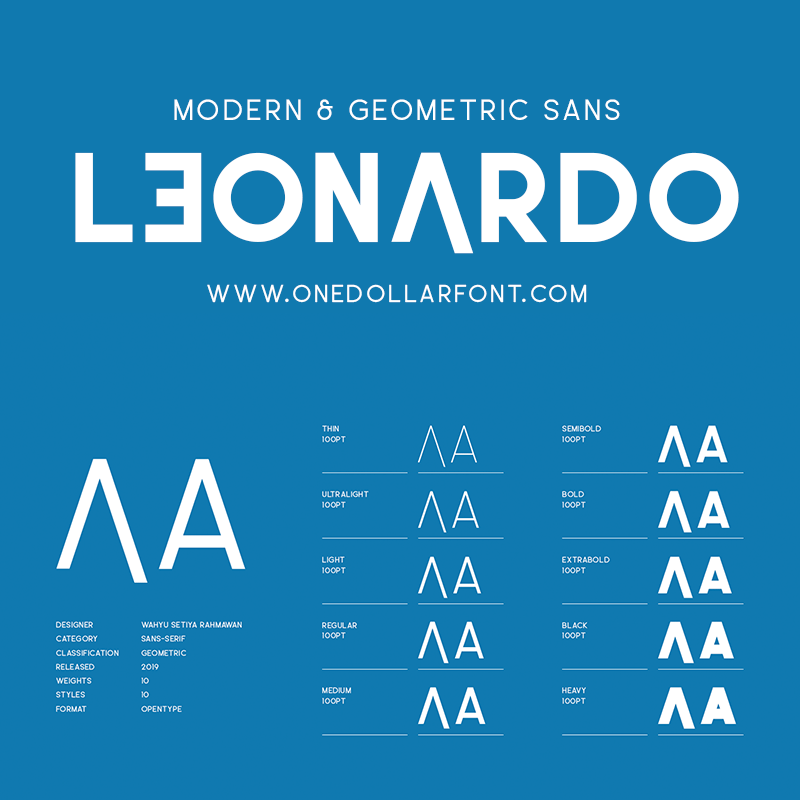
Preview and download Leonardo Font. Created by Wahyu Rahmawan in Basic Sans serif styles with Demo license.
Leonardo is a modern sans serif with a geometric touch. It comes in 10 weights, clean and modern caps, thereby creating more variability. The thin & bold weights are free of charge, so you can use them to your heart�s content. Designed with powerful opentype features in mind. Each weight includes extended language support, fractions, tabular figures, arrows, ligatures and more. Perfectly suited for graphic design and any display use. It could easily work for web, signage, corporate as well as for editorial design. Weights: Thin, UltraLight, Light, Regular, Medium, SemiBold, Bold, ExtraBold, Black, Heavy Get Full Version for $1 at https://www.onedollarfont.com/ |